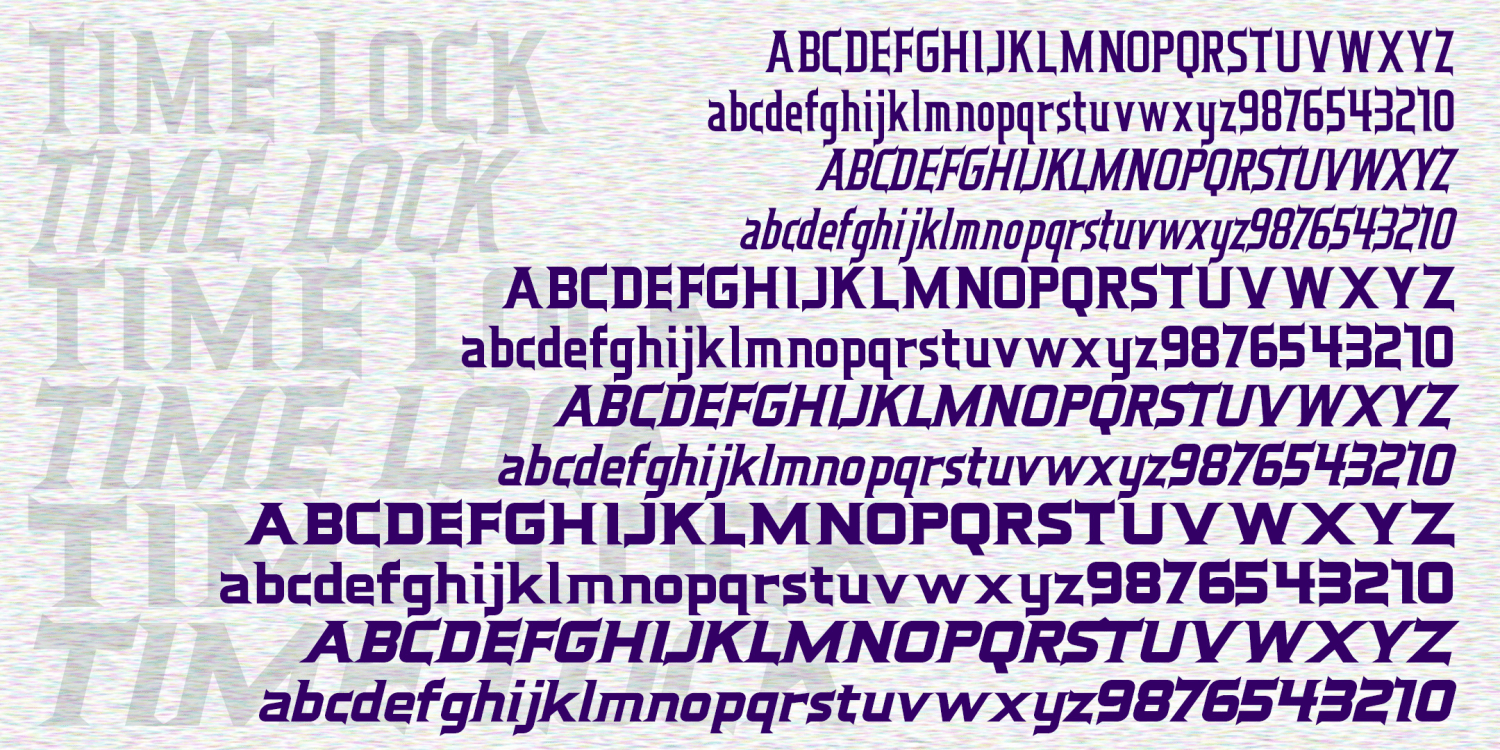
Time Lock
About Time Lock
TIME LOCK is a 6-font family with an exciting retro-futuristic feel. Sleek and streamlined, with distinctive triangular serifs strategically placed like fins. In three weights with matching oblique fonts for even better aerodynamics. Time Lock was inspired…